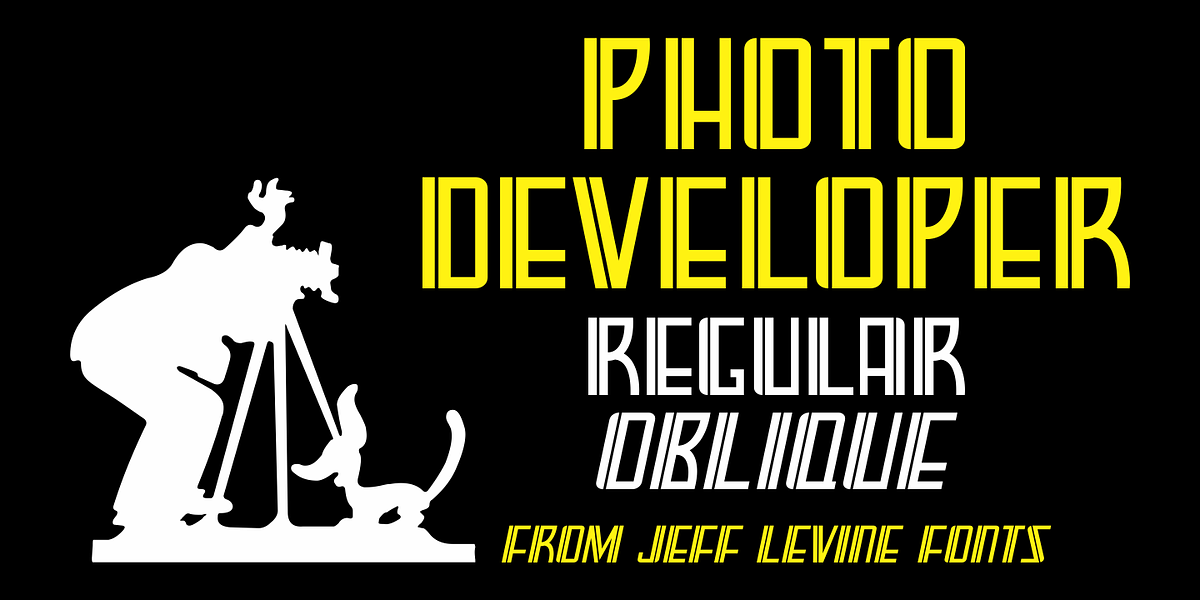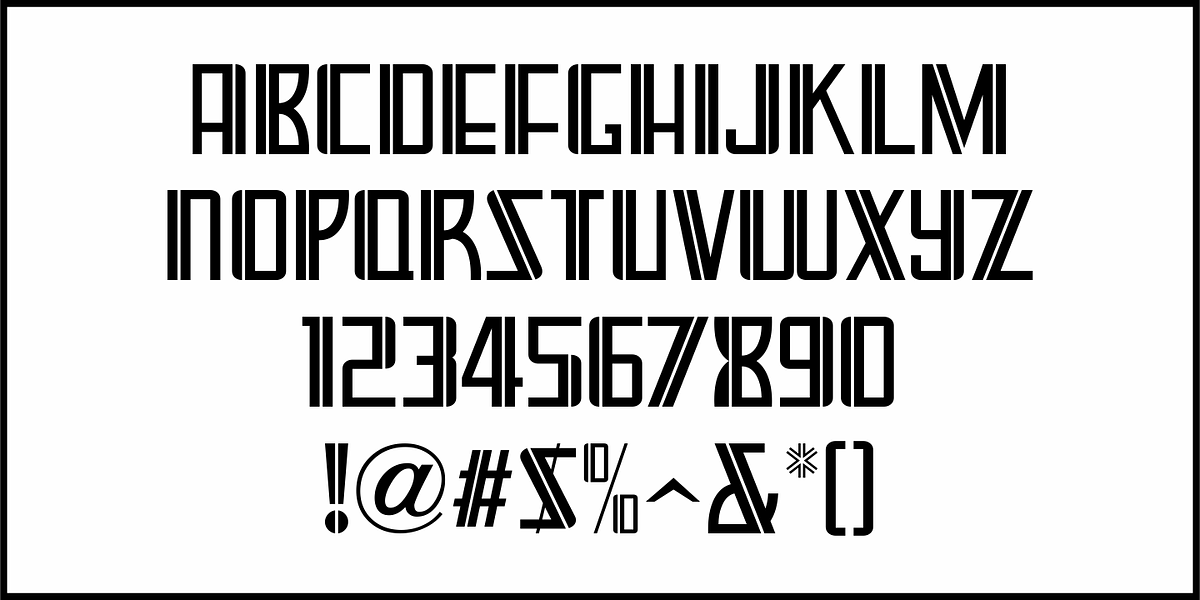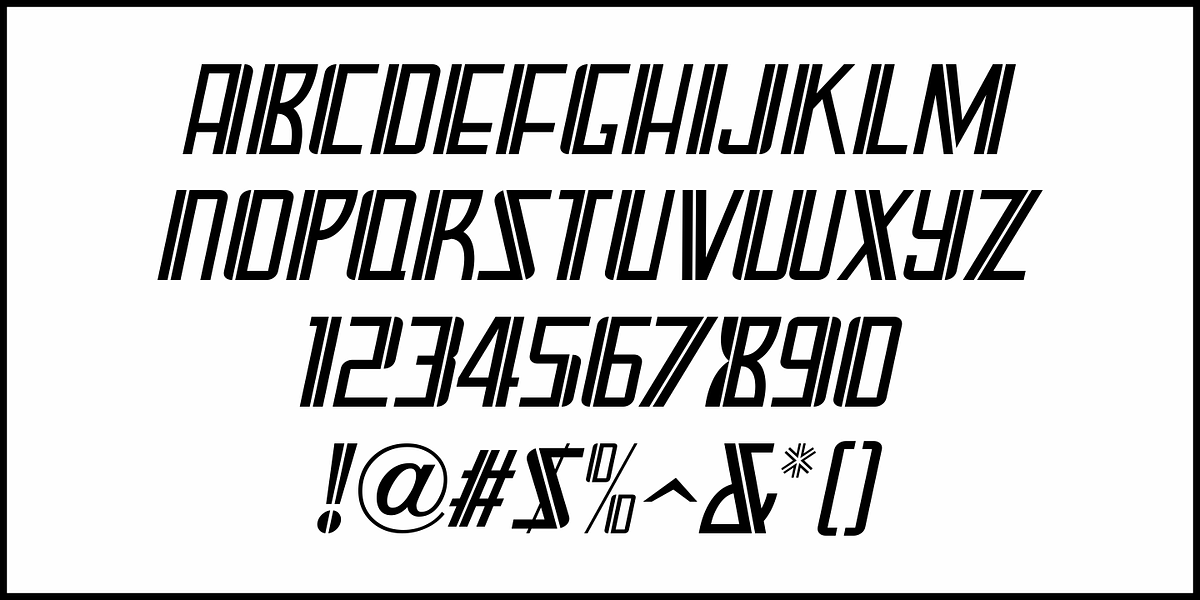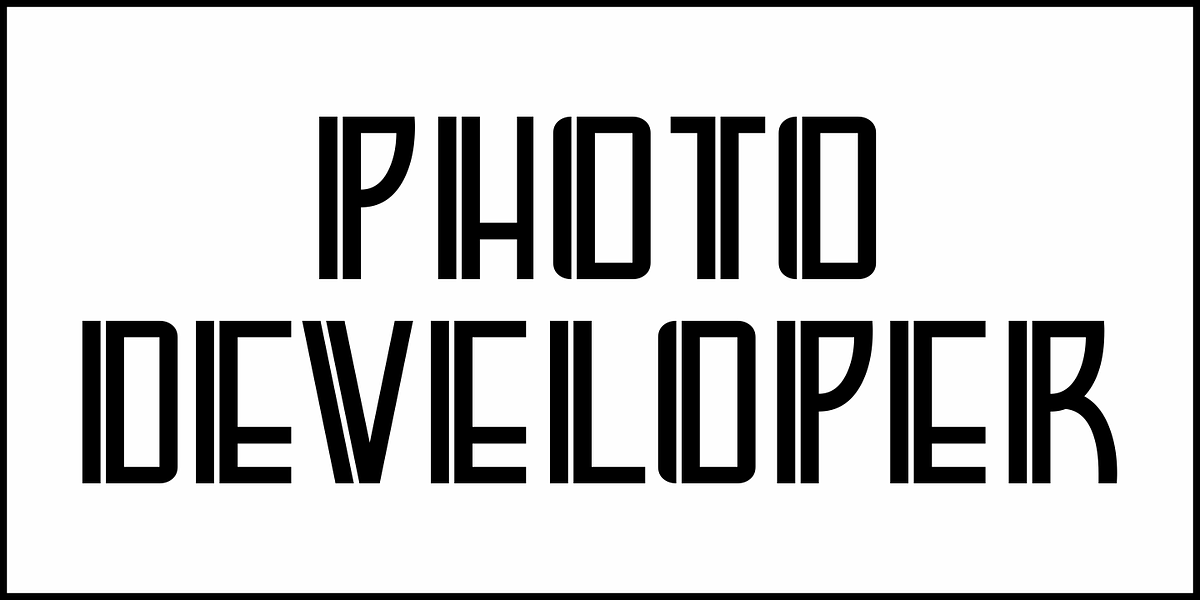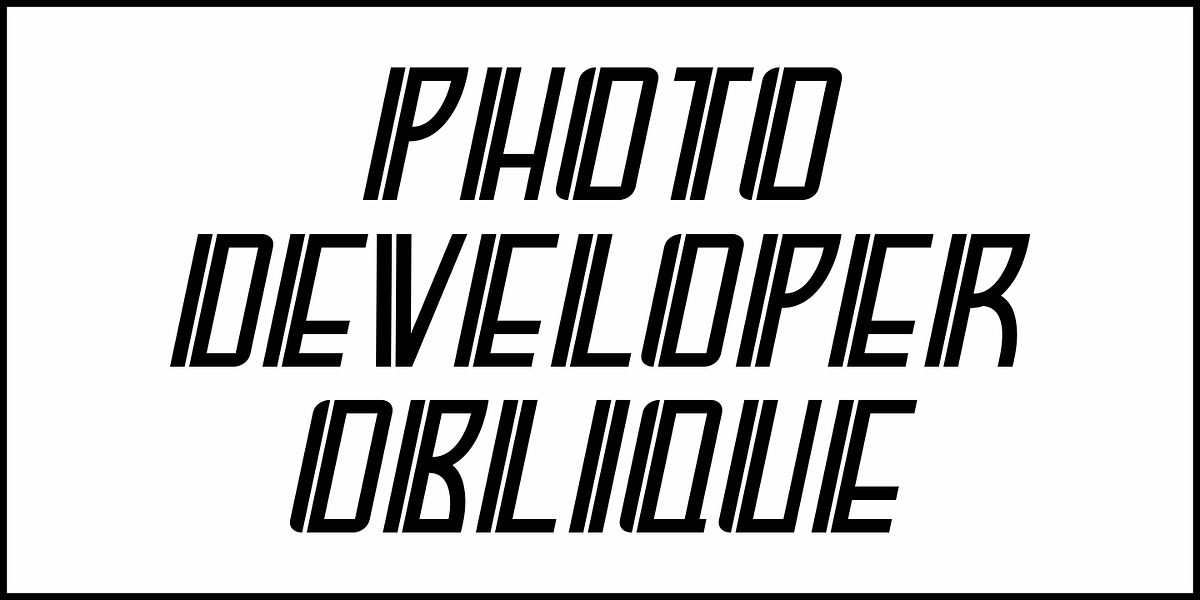
Photo Developer JNL
An image found online of a vintage storefront sign for the Kraus Photo Shop was the inspiration for Photo Developer JNL, which is available in both regular and oblique versions.
The sign featured a thick and thin Art Deco style lettering with an inline cutting through the thicker strokes.
Before the advent of digital photography, and way before chain stores offered in-house processing, neighborhood photo labs were the only place for getting prints from your roll film (unless you wanted to send the film into Kodak for developing and printing).
Customers of these stores could also purchase additional film, cameras and photographic accessories from the same location.